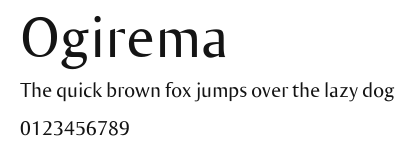
Ogirema Preview
About Ogirema.ttf
Ogirema.ttf is a modern, elegant sans-serif font designed for ultimate readability and visual harmony. Perfect for branding, headlines, web design, and print materials.